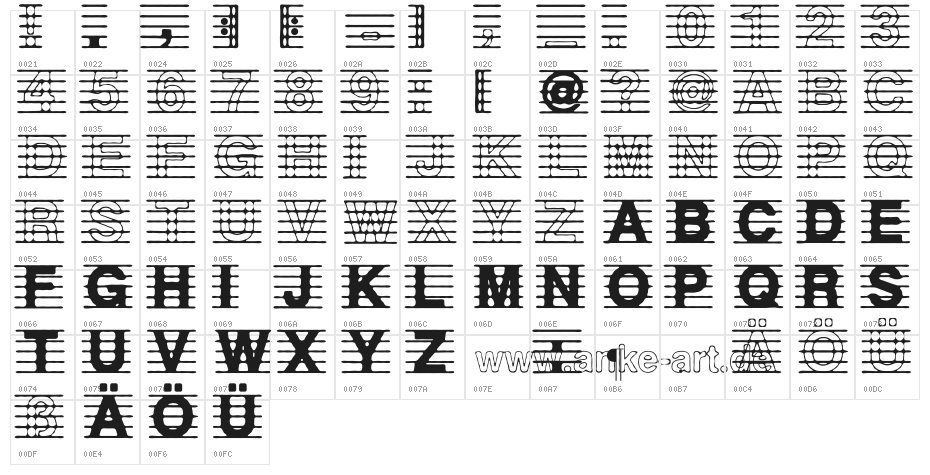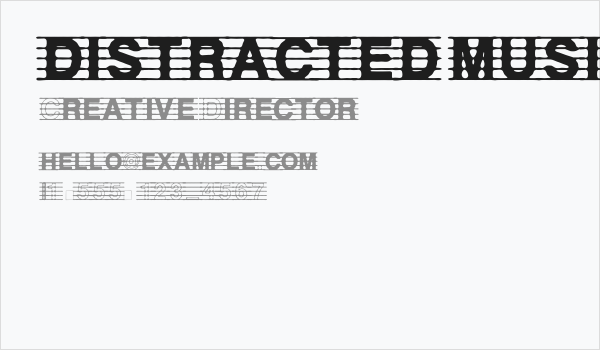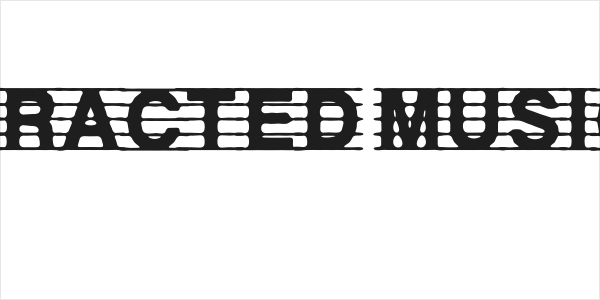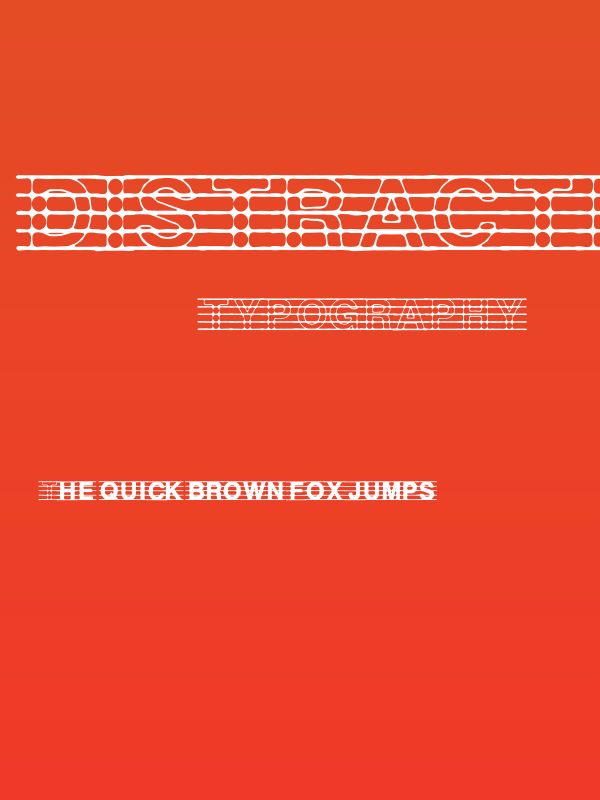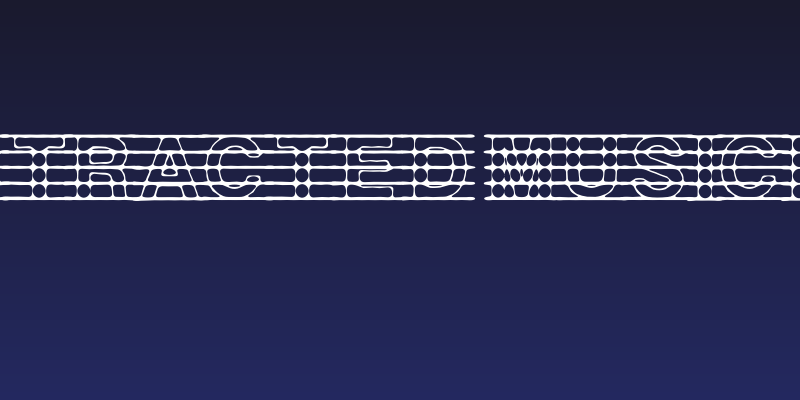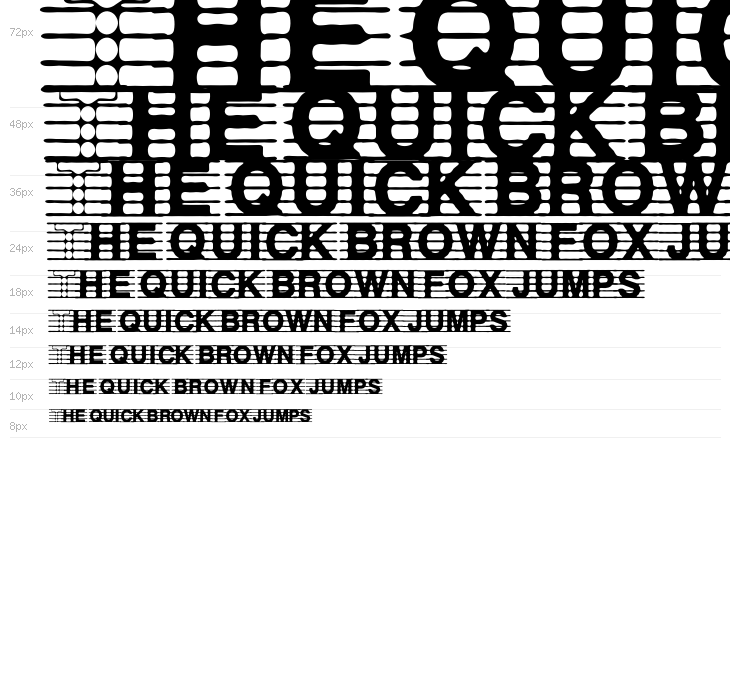
distracted musician Font
distracted musician Description
This font features a unique design that incorporates musical staff lines into the structure of each character, creating a visually striking and thematic appearance. The uppercase letters are bold and prominent, with horizontal lines running through them, reminiscent of musical notation. The numbers and special characters follow the same design principle, maintaining consistency across the entire set. This font is highly decorative and artistic, making it ideal for projects that require a musical or creative theme. The intricate design may not be suitable for small text or body copy, but it excels in larger formats where its details can be appreciated.
| Proposed Projects | Ideal for music-themed posters, album covers, event flyers, and artistic projects. |